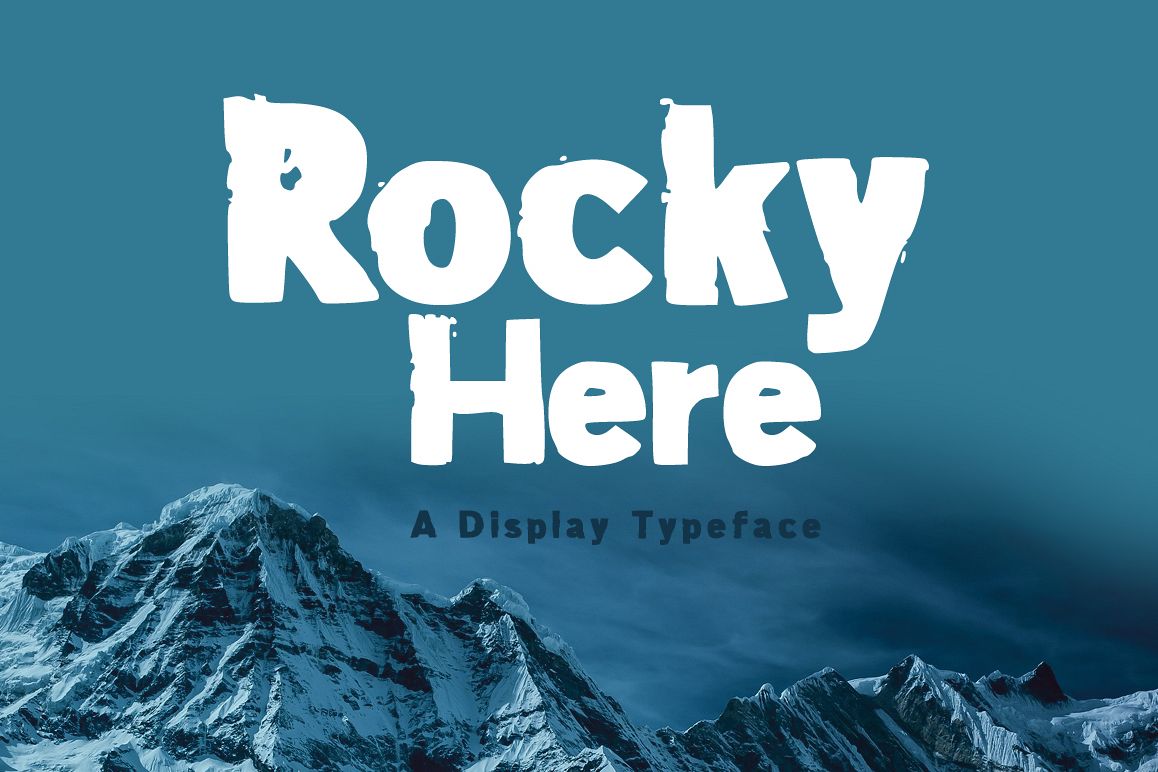
Introducing Rocky Here!Rocky Here is a fresh & modern font.
Rocky Here is perfectly suited to stationery, logos, t-shirt, paper, print design, website header, photo frame, flyer, music cover, poster, image slider and much more.Features: